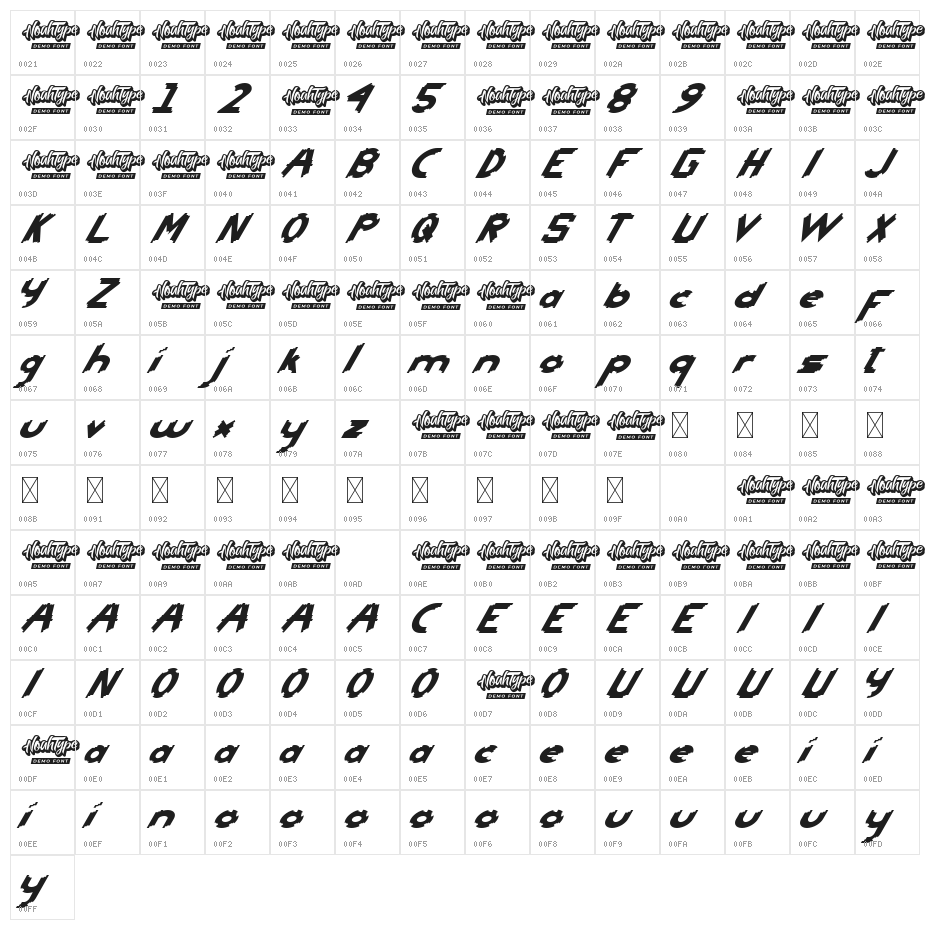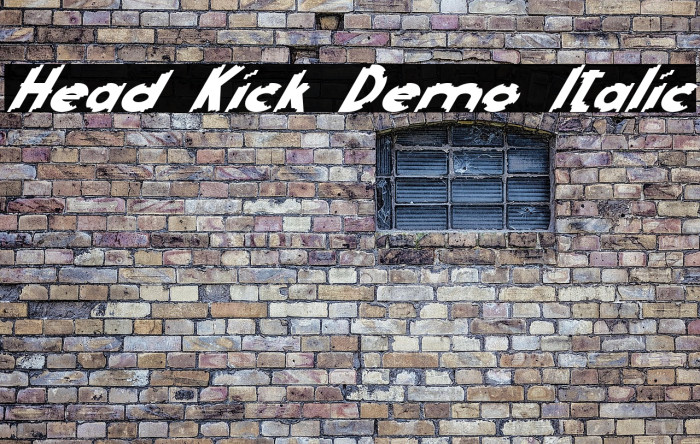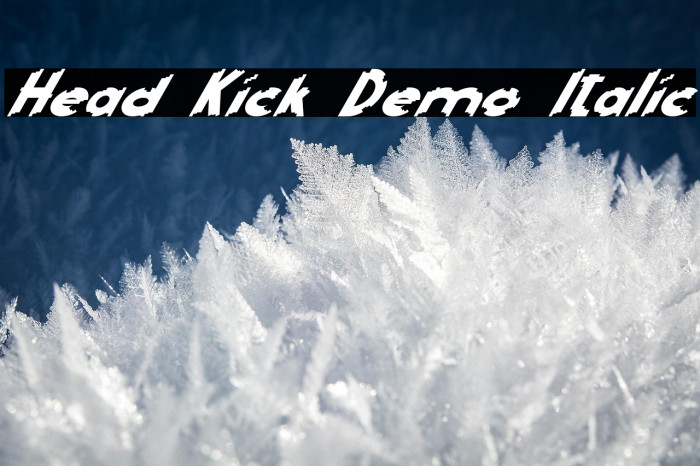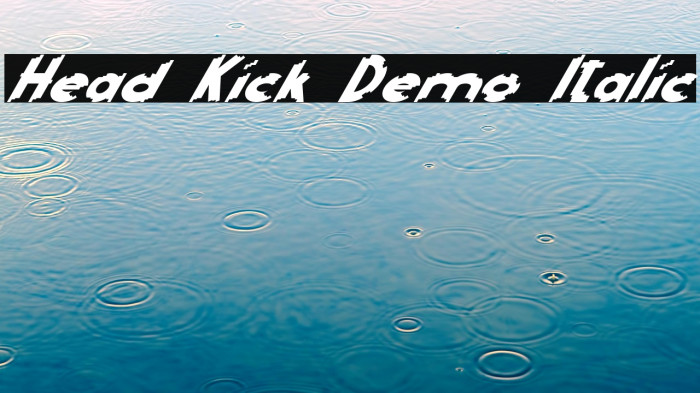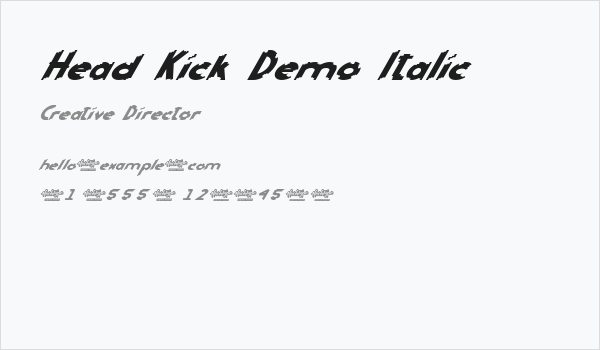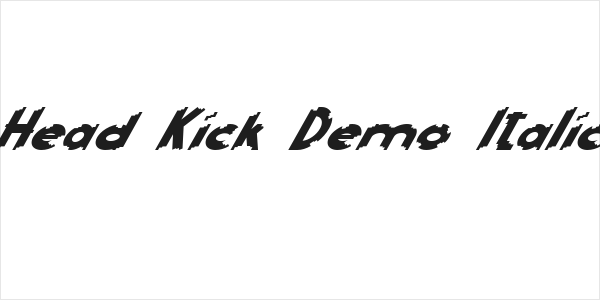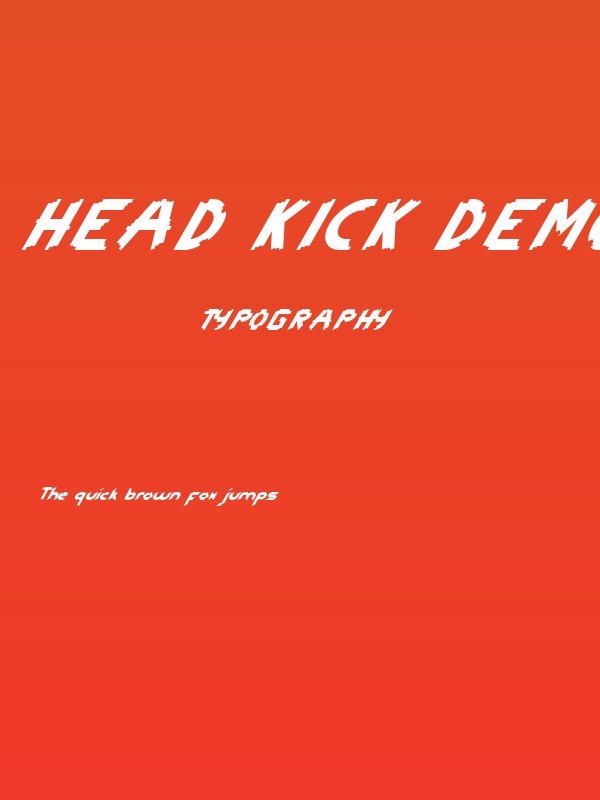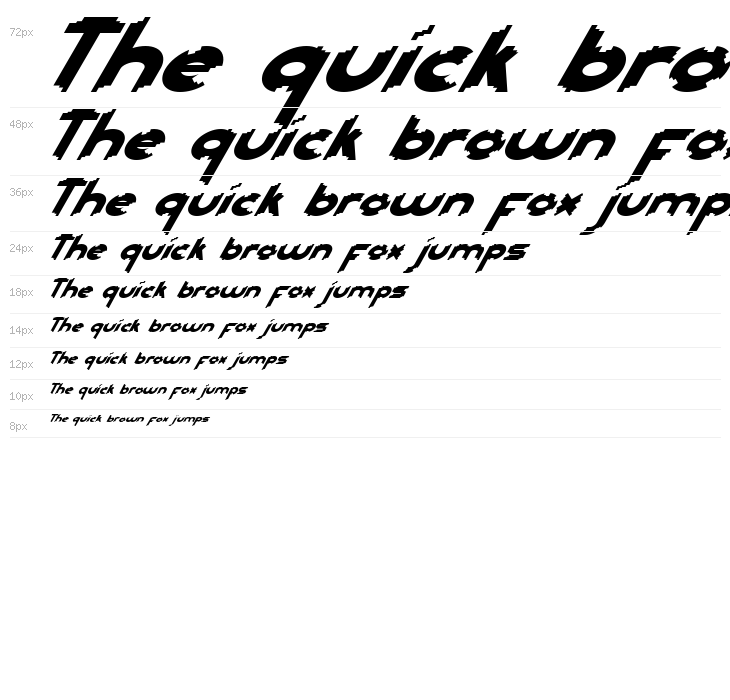
Head Kick Demo Italic Font
Head Kick Demo Italic Description
This font features a bold and dynamic style with sharp, angular edges and a distinct italic slant. The characters are designed with a sense of movement and energy, making them ideal for attention-grabbing headlines or impactful designs. The uppercase and lowercase letters maintain a consistent style, with exaggerated strokes that give a sense of speed and aggression. The numbers and special characters are equally bold, ensuring uniformity across all text elements. This font's unique design is perfect for projects that require a strong visual impact.
Proposed ProjectsIdeal for sports branding, action-themed posters, or dynamic logo designs.